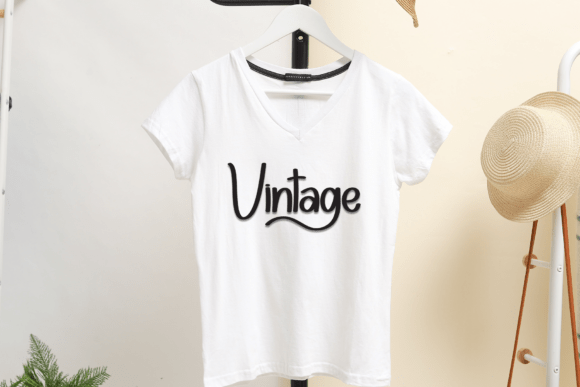
Pinkytoe Font: A Heartfelt, Hand-Drawn Font for Adding Charm and Simplicity to Your Designs
In the world of typography, fonts play a crucial role in conveying emotions and setting the tone for various designs. If you’re looking for a font that embodies charm and simplicity, look no further than the Pinkytoe font. This adorable, hand-drawn font is perfect for adding a touch of playfulness and joy to your wedding invitations, greeting cards, and other design projects.
What is Pinkytoe Font?
Pinkytoe font is a unique, hand-drawn font that is designed to bring a sense of delight and exuberance to your designs. Its charming and simple aesthetic makes it perfect for a variety of projects, from wedding invitations and greeting cards to posters, flyers, and more.
The font’s playful and adorable design is sure to capture the attention of your audience and leave a lasting impression. Whether you’re a designer, artist, or simply someone who loves to create, Pinkytoe font is an excellent choice for adding a personal touch to your work.
Characteristics of Pinkytoe Font
Pinkytoe font has several characteristics that make it stand out from other fonts. Some of its key features include:
- Hand-drawn design: Pinkytoe font is carefully crafted by hand, giving it a unique and personal touch.
- Charming and simple aesthetic: The font’s design is both charming and simple, making it perfect for a variety of projects.
- Playful and adorable: Pinkytoe font has a playful and adorable design that is sure to bring a smile to your audience’s faces.
- Versatile: The font is versatile and can be used for a wide range of projects, from wedding invitations to posters and flyers.
Uses of Pinkytoe Font
Pinkytoe font is a versatile font that can be used for a variety of projects. Some of the most popular uses of the font include:
- Wedding invitations: Pinkytoe font is perfect for wedding invitations, adding a touch of charm and simplicity to your wedding stationery.
- Greeting cards: The font is also great for greeting cards, allowing you to add a personal touch to your cards and make them stand out.
- Posters and flyers: Pinkytoe font can be used for posters and flyers, adding a playful and eye-catching touch to your designs.
- Social media graphics: The font is also perfect for social media graphics, allowing you to add a personal touch to your social media posts.
Benefits of Using Pinkytoe Font
There are several benefits to using Pinkytoe font in your designs. Some of the most significant advantages include:
- Unique and personal touch: Pinkytoe font adds a unique and personal touch to your designs, setting them apart from others.
- Easy to read: The font is easy to read, making it perfect for a variety of projects, from wedding invitations to posters and flyers.
- Versatile: Pinkytoe font is versatile and can be used for a wide range of projects.
Pinkytoe font is a unique and versatile font that can add a touch of charm and simplicity to your designs. Its playful and adorable design makes it perfect for a variety of projects, from wedding invitations to posters and flyers. With its ease of use and numerous benefits, Pinkytoe font is an excellent choice for designers, artists, and anyone who loves to create.
- What is Pinkytoe font?: Pinkytoe font is a hand-drawn font that embodies charm and simplicity.
- What is Pinkytoe font used for?: Pinkytoe font can be used for a variety of projects, including wedding invitations, greeting cards, posters, and flyers.
- Is Pinkytoe font easy to read?: Yes, Pinkytoe font is easy to read, making it perfect for a variety of projects.